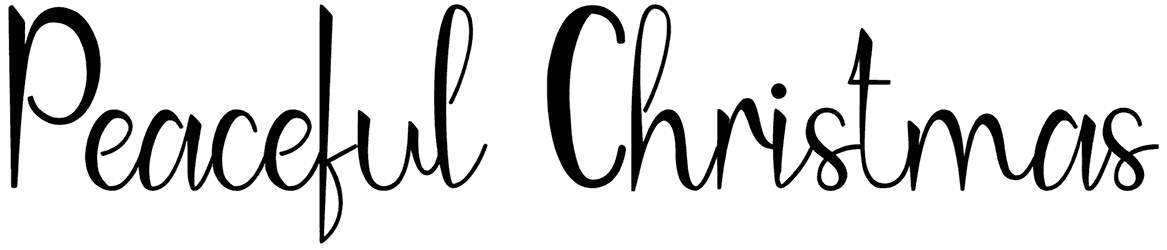
Christop Font
Christop is an artistic Christmas font that comes with crooked and rounded letters, thus it can lead to a vibe of dynamic, personalization, dreaminess, and tenderness.